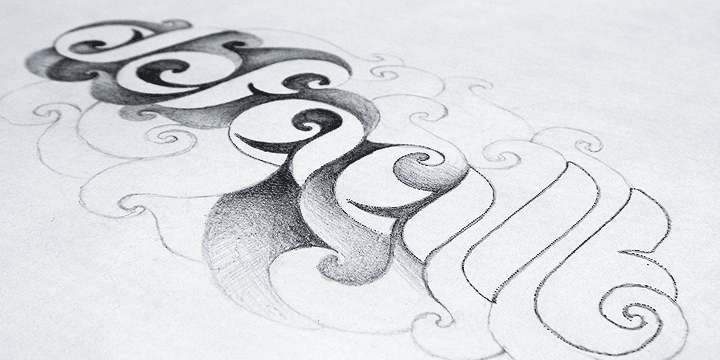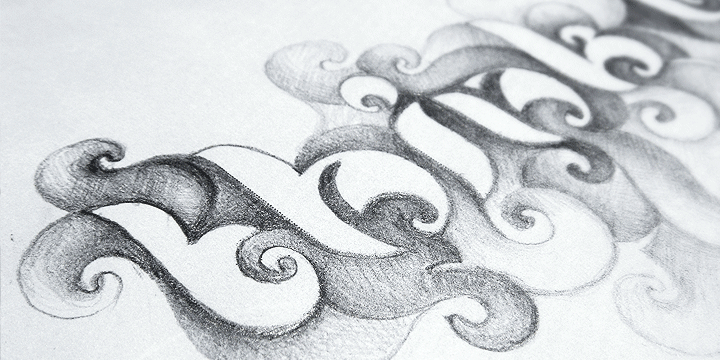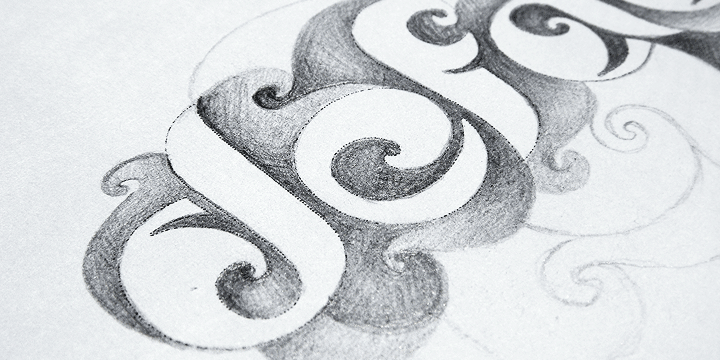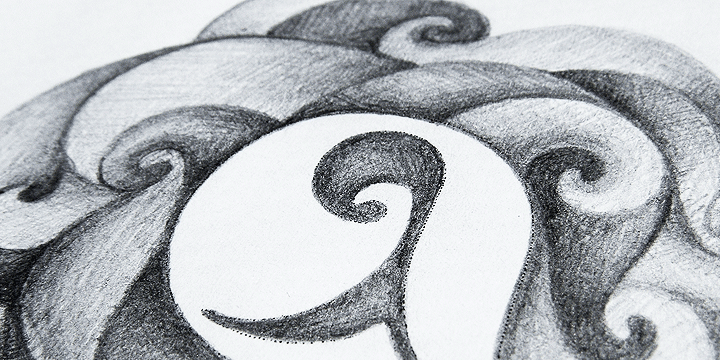
Noveu
Font Family by Fontfabric
Noveu is a custom font which is applicable for any type of graphic design - web, print, motion graphics etc and perfect for t-shirts and logos.